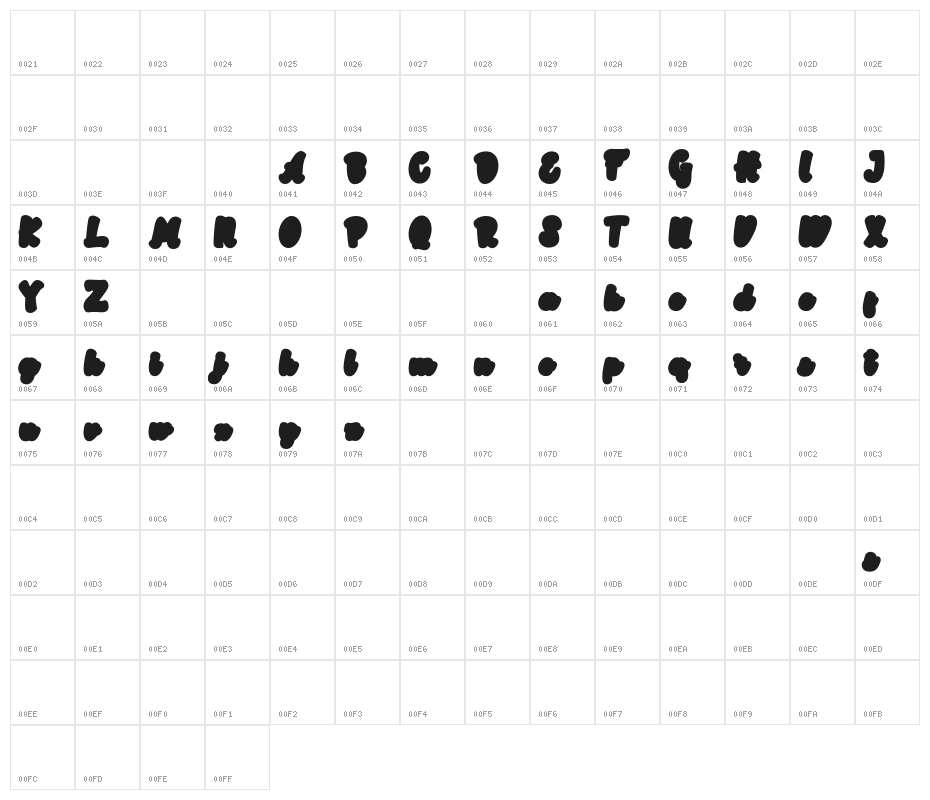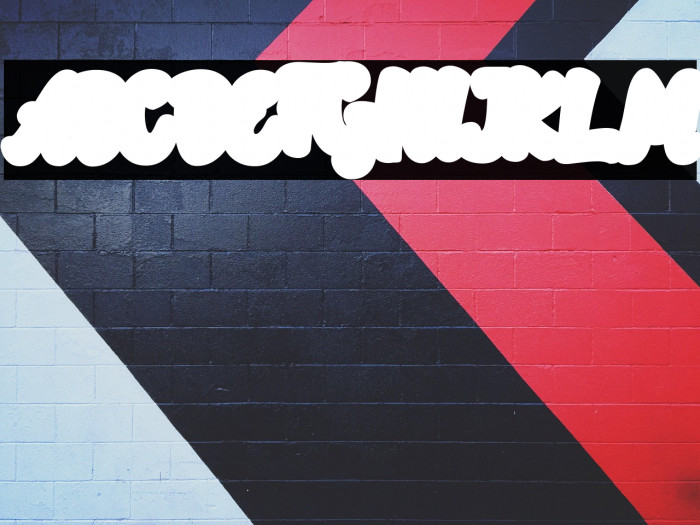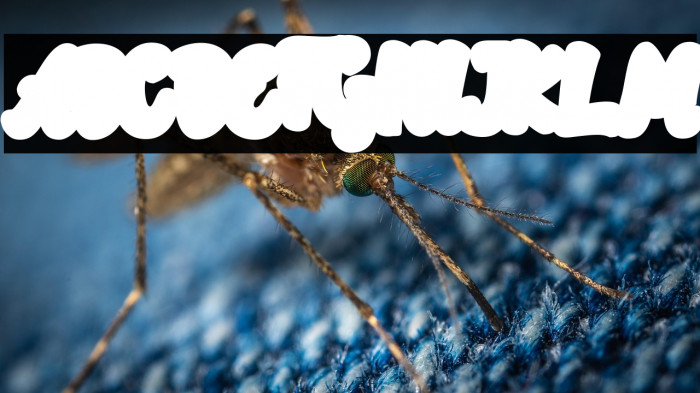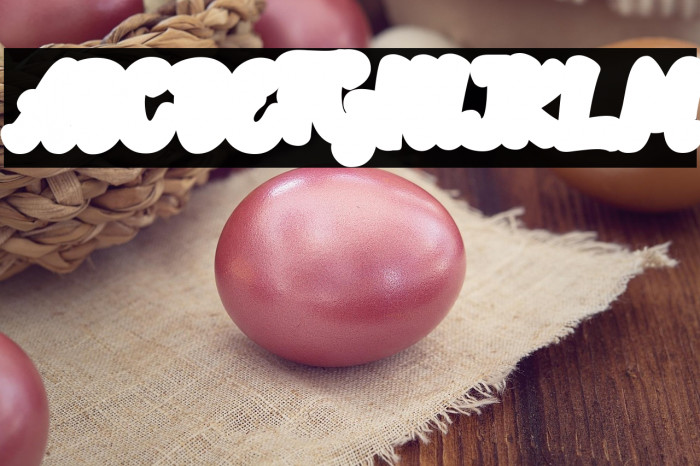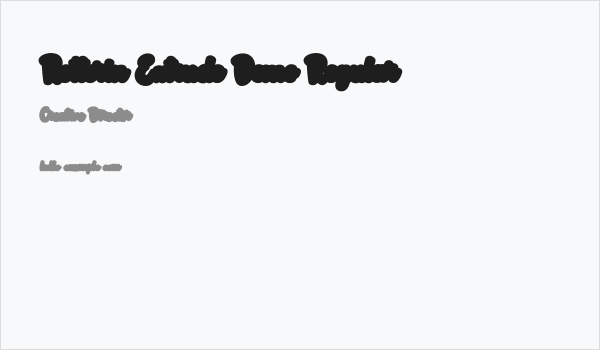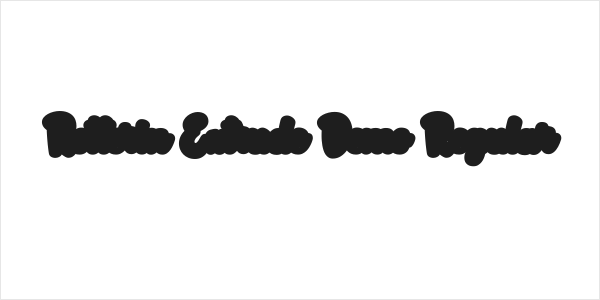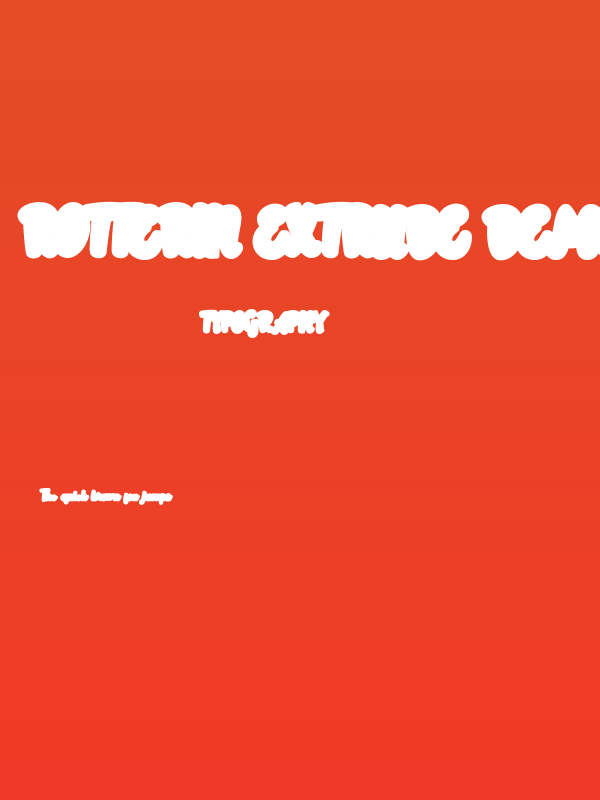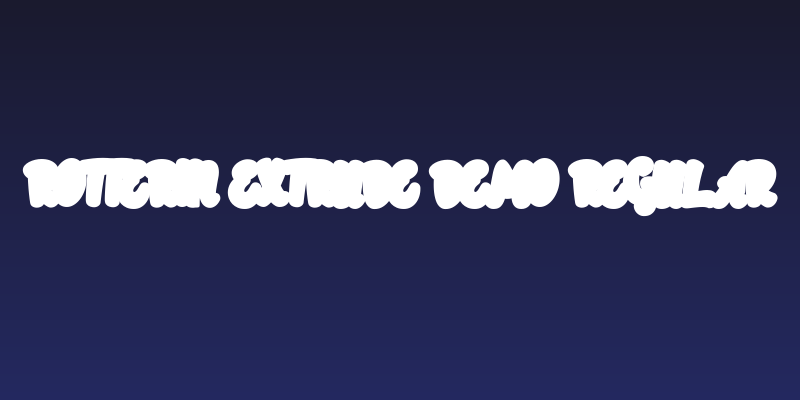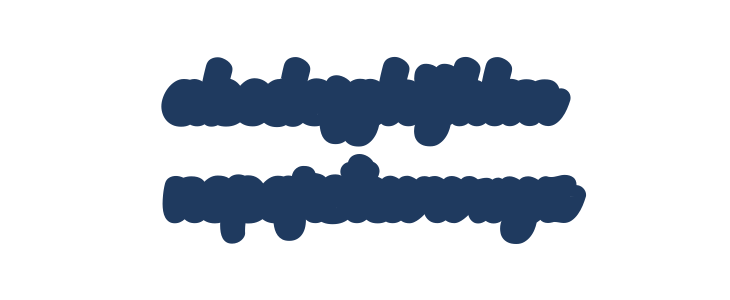
Rotterin Extrude Demo Regular Font
Rotterin Extrude Demo Regular Description
This font features a bold and playful style with a heavy, extruded appearance. The characters are rounded and thick, creating a sense of depth and dimension. The uppercase and lowercase letters maintain a consistent weight, contributing to a cohesive look. The numbers and special characters follow the same design principles, ensuring uniformity across all glyphs. The font's exaggerated thickness and rounded edges give it a friendly and approachable feel, making it suitable for eye-catching designs.
| Overall Style | Playful, Bold, Decorative |
| Use Case | Logos, Posters, Headlines |
| Proposed Projects | Ideal for children's books, playful branding, posters, and any design requiring a fun and bold statement. |